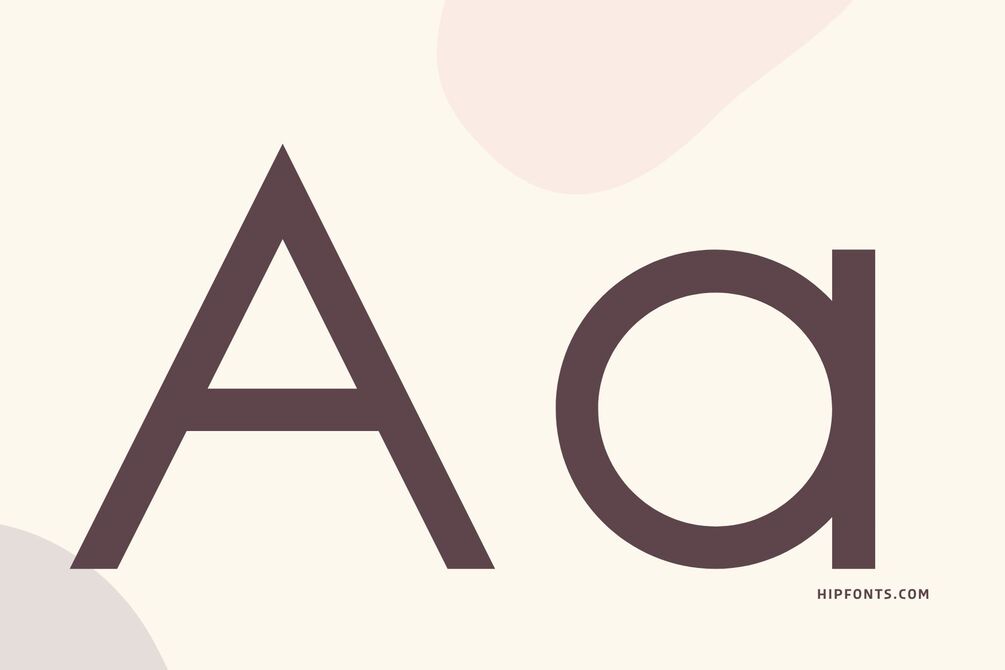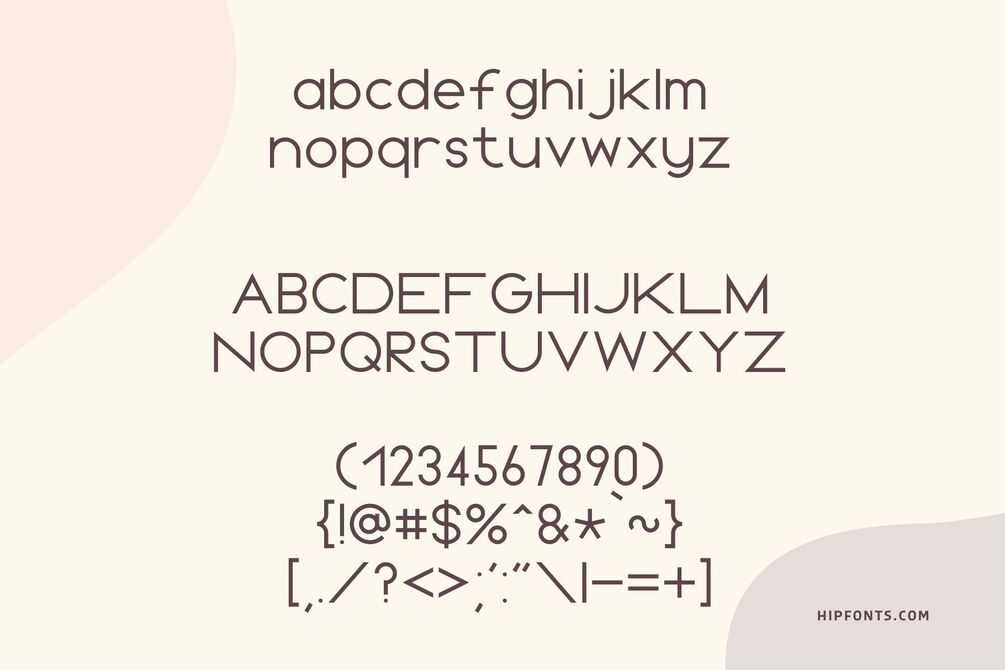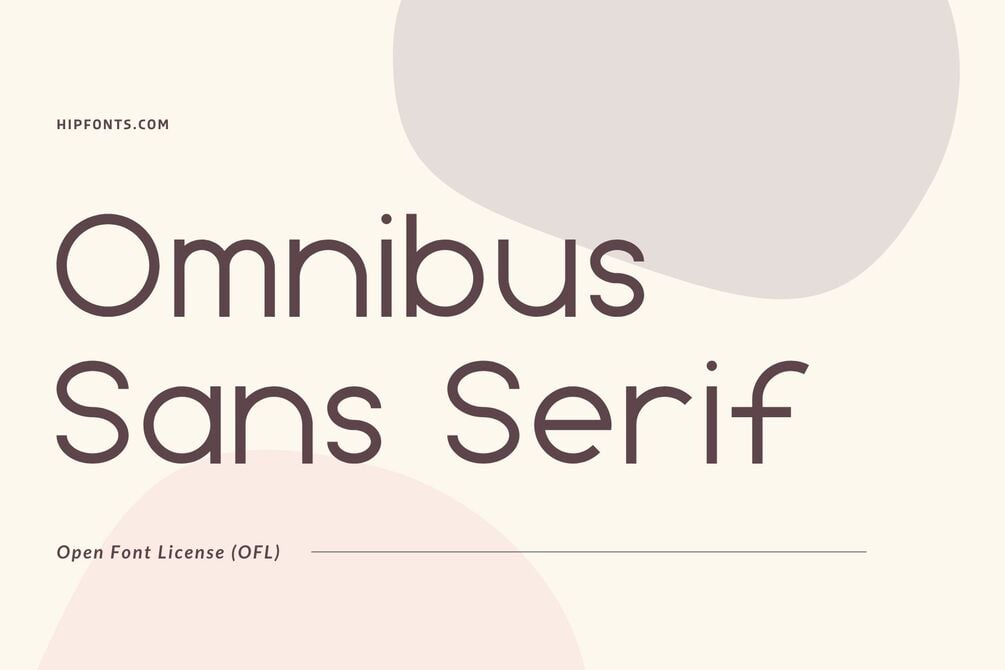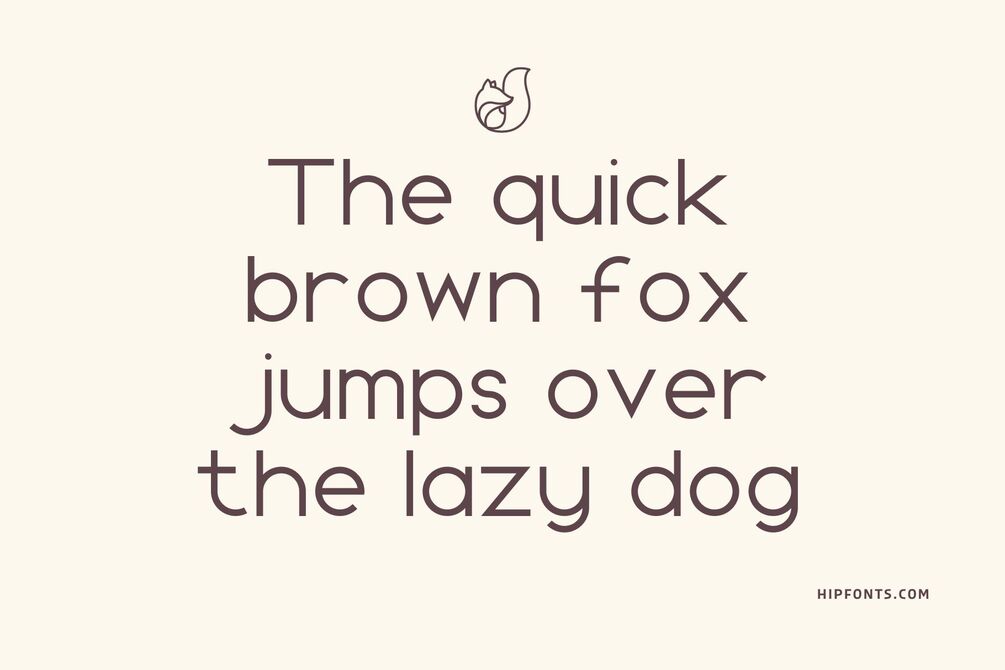
Omnibus Sans Serif
Introducing "Omnibus Sans Serif," a versatile and modern font created by renowned typographer, Andrew Sigurow. With a name that translates to "collective" or "all-encompassing," Omnibus Sans Serif truly lives up to its moniker by offering a comprehensive range of possibilities for designers and creatives alike.
Andrew Sigurow designed Omnibus Sans Serif with meticulous attention to detail, resulting in a typeface that balances simplicity and sophistication. The clean lines and geometric shapes give the font a contemporary and timeless appeal, making it suitable for a wide array of applications. From editorial design to branding and web projects, Omnibus Sans Serif adds a touch of professionalism and clarity to any project.
What sets Omnibus Sans Serif apart is its versatility. It effortlessly adapts to various design contexts, from minimalist and sleek layouts to bold and eye-catching compositions. With multiple weights and accompanying italics, Omnibus Sans Serif offers a rich typographic palette that allows designers to express their creativity with precision and harmony. Whether used for headlines, body text, or logos, Omnibus Sans Serif by Andrew Sigurow ensures clear communication and an engaging visual experience.